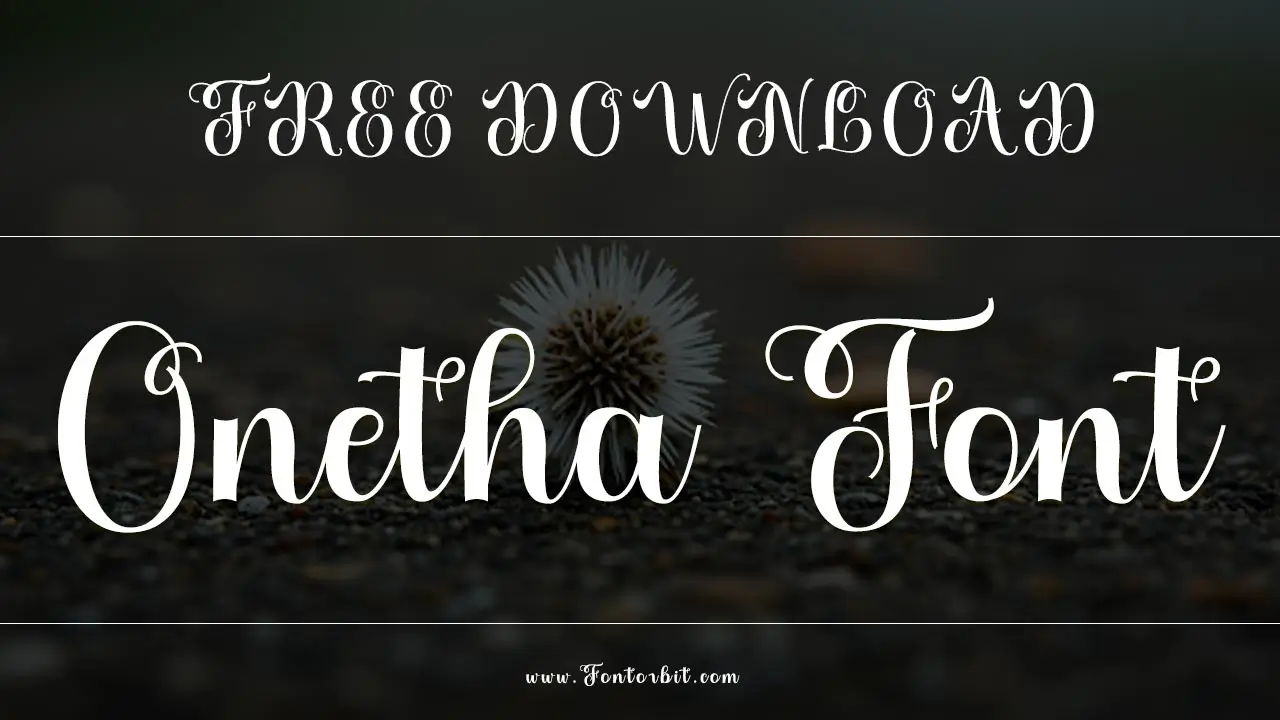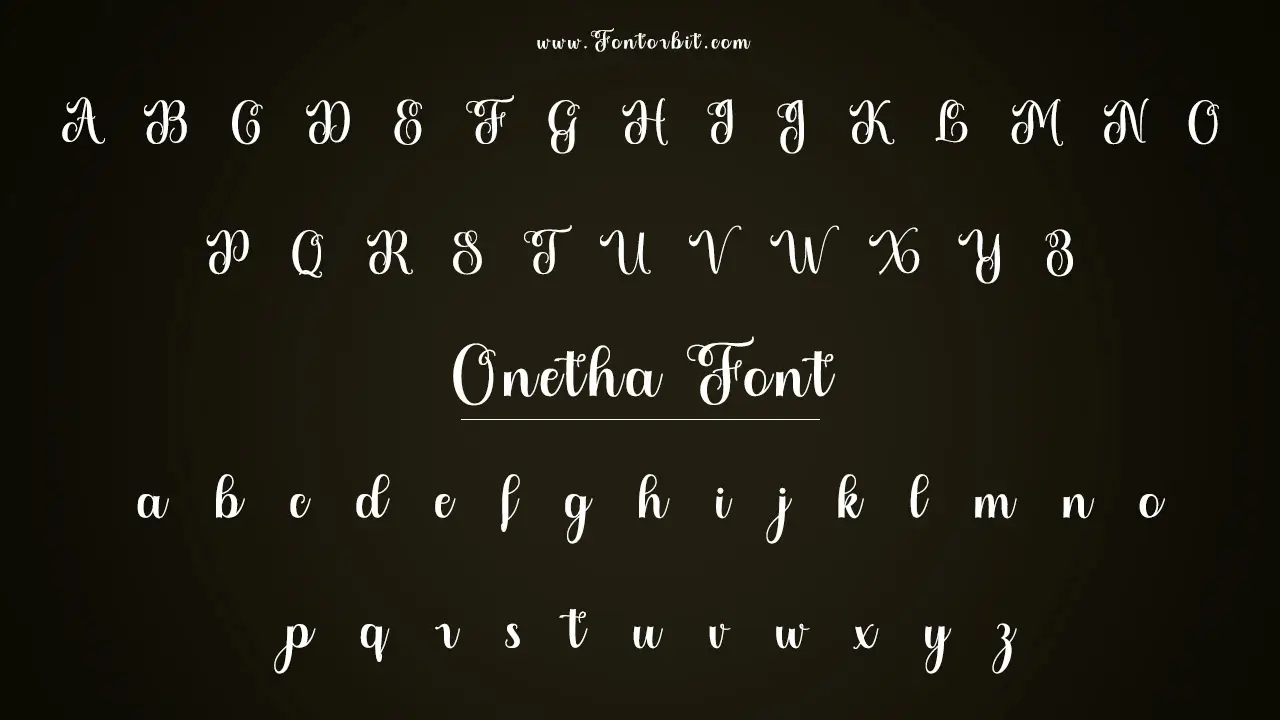
Onetha Font is a stylish script font known for its elegant calligraphy. Designed by Khaidir and published by Gatype, it is widely used in branding, book covers, posters, signage, and digital design.
Featuring OpenType stylistic alternates, ligatures, and PUA Unicode, it provides designers with a variety of options to create stunning visuals. This decorative and handwritten script font is perfect for logos, invitations, quotes, and website typography. Its refined strokes and swashes make it a popular choice among designers who seek elegance and readability.
Onetha Font Family Styles
- Onetha Regular
- Onetha Italic
- Onetha Decorative
- Onetha Script
| Style: | Calligraphy |
Why Choose Onetha Font?
- Elegant calligraphy for professional and personal projects
- Supports Western languages, including English and Arabic
- Features OpenType stylistic alternates & ligatures
- Suitable for branding, posters, signage, book covers, and social media graphics
Where To Use Onetha Font?
- Branding & Logo Design – Adds a professional and sophisticated touch.
- Book Covers & Posters – Enhances titles with decorative elegance.
- Signage & Labels – Perfect for stylish product packaging.
- Digital & Print Media – Ideal for quotes, social media, and marketing.
- Invitations & Greeting Cards – Creates a refined and classy appeal.
- Web Design & Typography – Improves website aesthetics with script elegance.
1.What Kind Of Font Is Onetha?
Onetha is a script font with an elegant, handwritten calligraphy style.
3.Does Onetha Font Support Multiple Languages?
Yes, it supports Western languages, including English and Arabic.
5.What Are The Best Uses For Onetha Font?
Branding, signage, posters, book covers, invitations, and website typography.
7.Does Onetha Font Come In Multiple Styles?
Yes, it includes regular, italic, decorative, and script styles.